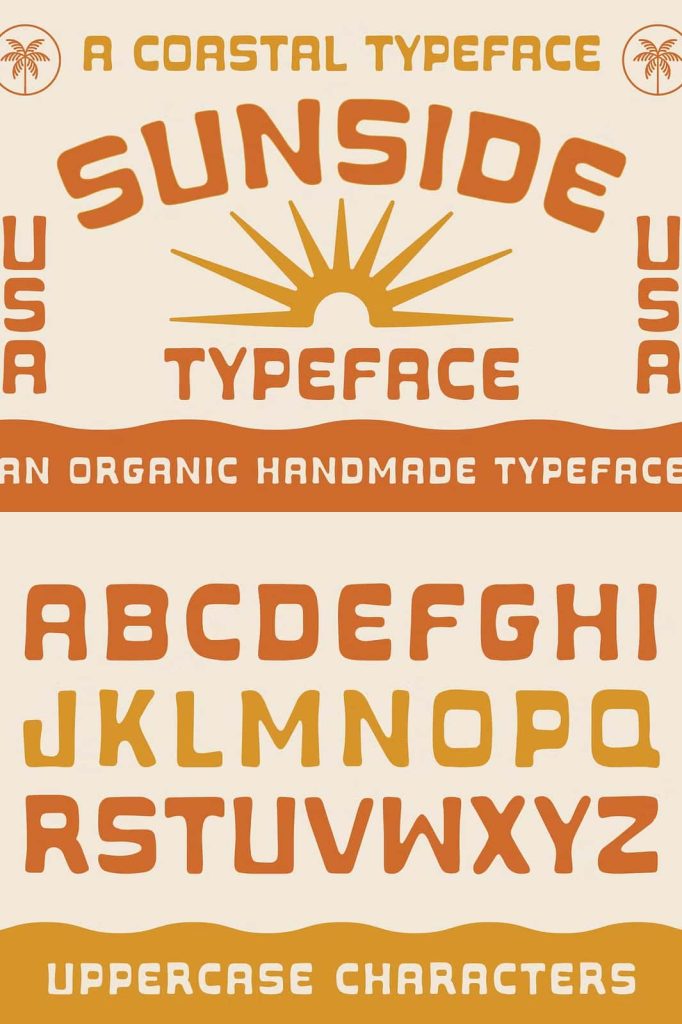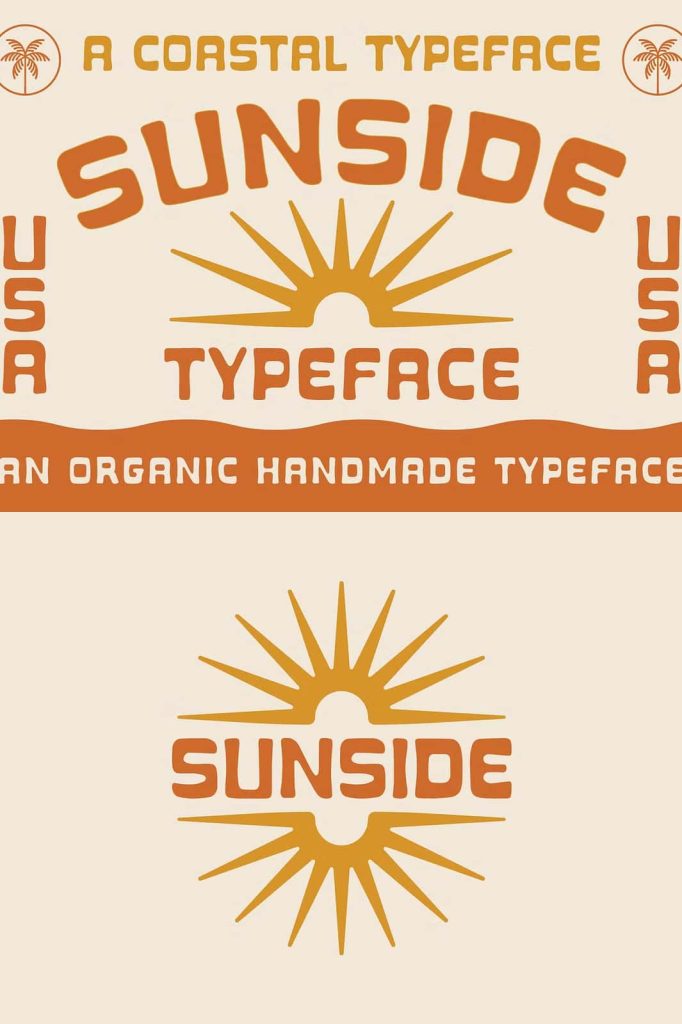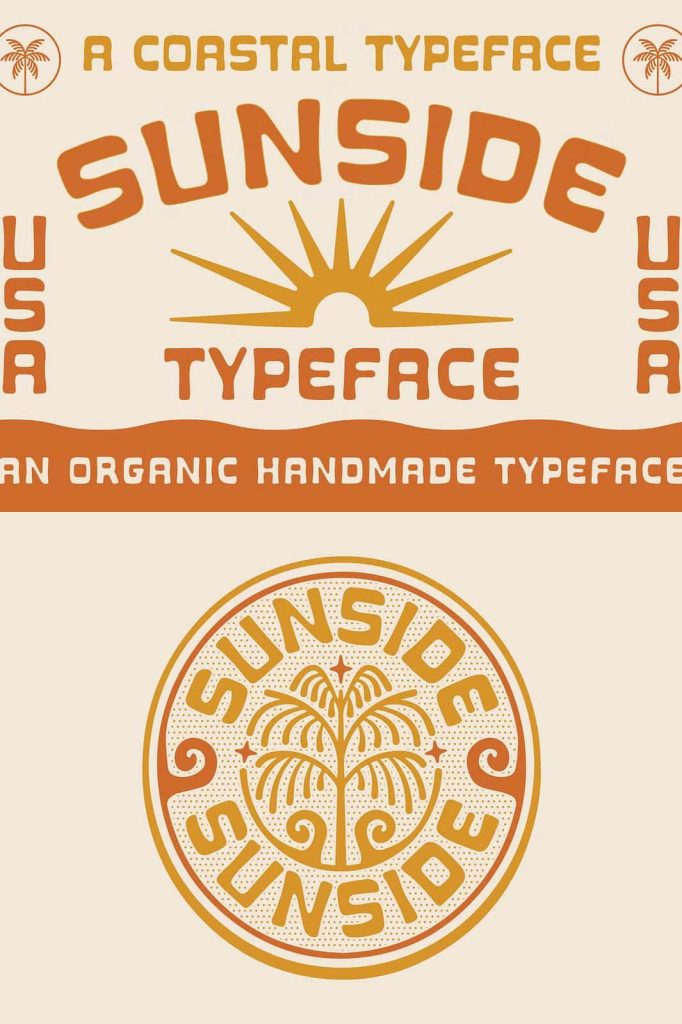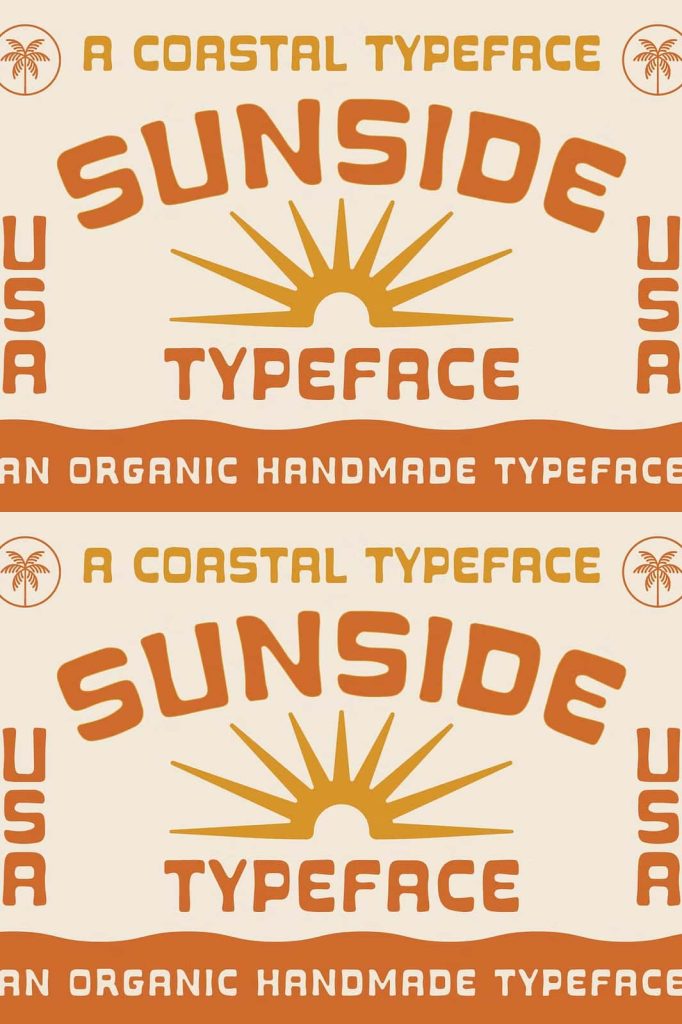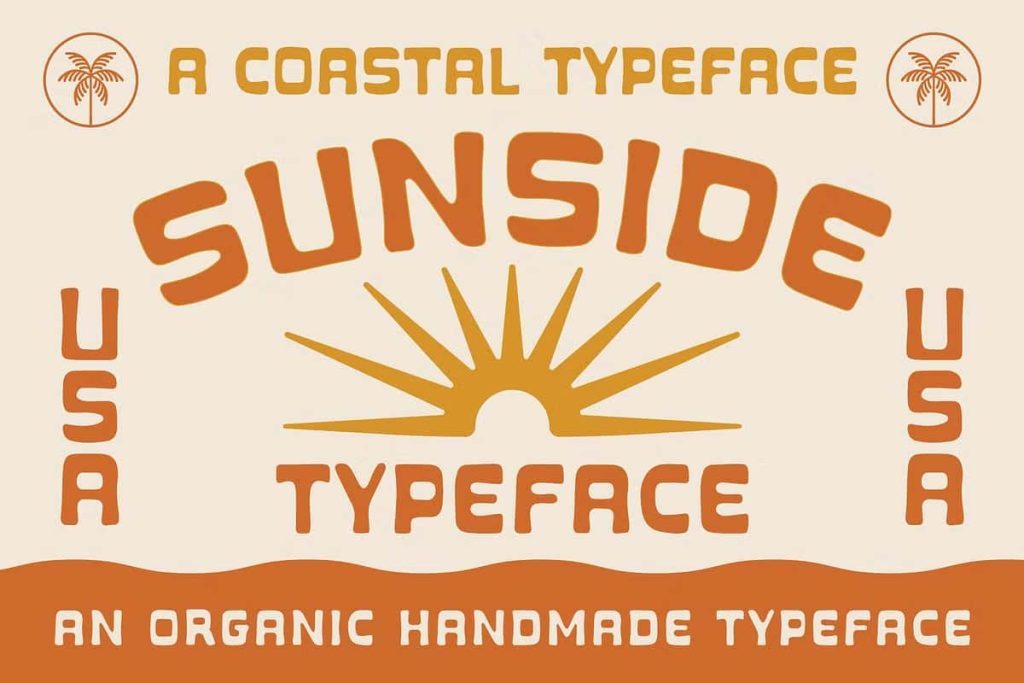
Sunside Typeface | Coastal FontleastedJuly 16, 2025Fonts The Sunside Typeface is a coastal inspired sans serif font featuring organic hand made letter forms. Download